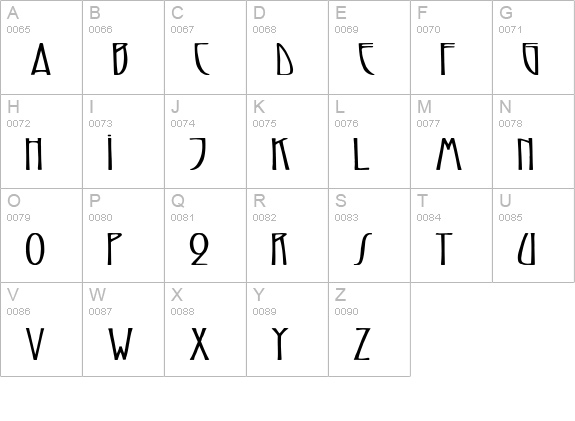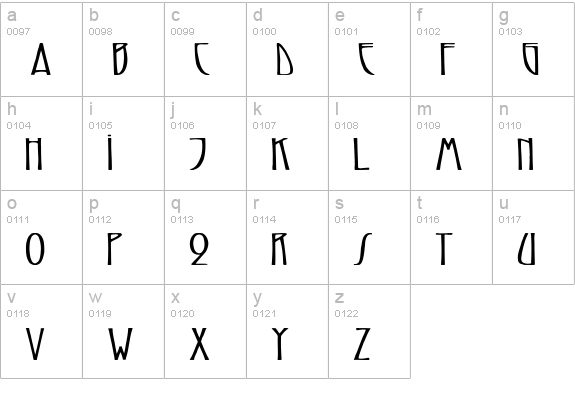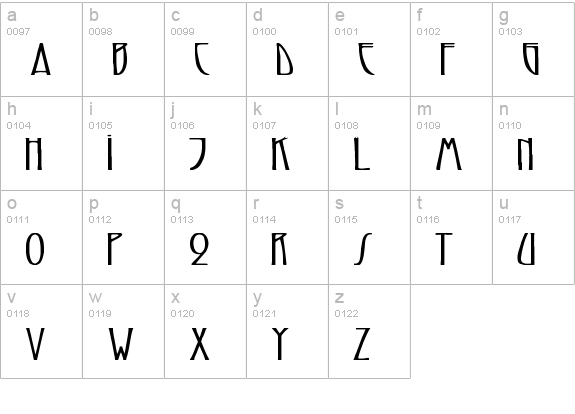
ReynoldCaps Bold is a strong, high-contrast variant in the ReynoldCaps typeface family \xE2\x80\x94 well suited to headlines, attention-grabbing titles, and strong calls-to-action.
ReynoldCaps Bold font is a stunning display typeface that exudes strength and confidence. With its bold and commanding presence, it is perfect for headlines, logos, and any design project that requires a touch of boldness. This font features carefully crafted uppercase letters, each meticulously designed to make a bold statement. The thick strokes and sharp edges give it a modern and contemporary feel, while still maintaining a sense of elegance and professionalism. ReynoldCaps Bold font is not only visually striking, but it also offers the convenience of being freely available to download at FontsMarket.com. It is a font that empowers designers and creatives, providing them with an exceptional tool to express their creativity and make a lasting impact. Whether you are designing a powerful headline or creating a standout logo, ReynoldCaps Bold font will effortlessly elevate your designs. Its versatility and unique character make it suitable for a wide range of applications, from advertising campaigns to packaging designs and everything in between. Embrace the boldness and make a statement with ReynoldCaps Bold font. Download it for free today at FontsMarket.com and unlock the potential to create impactful and unforgettable designs.